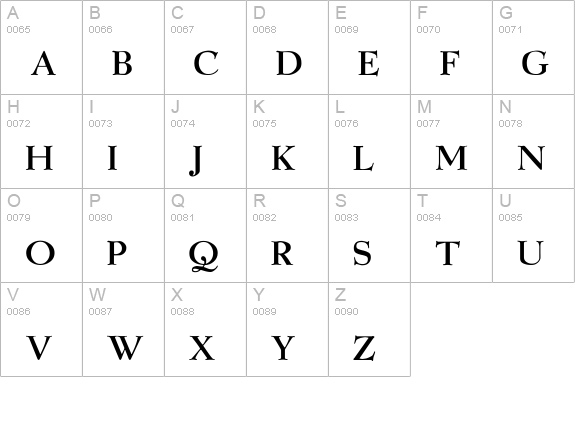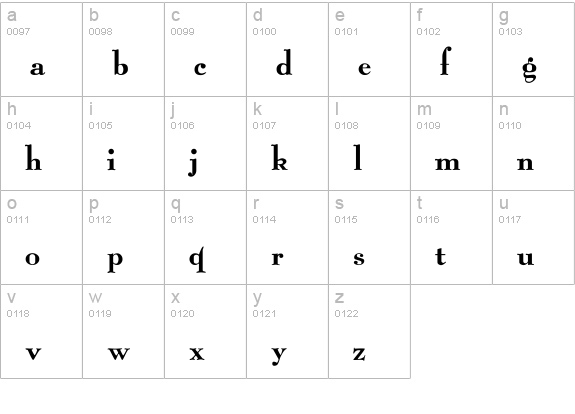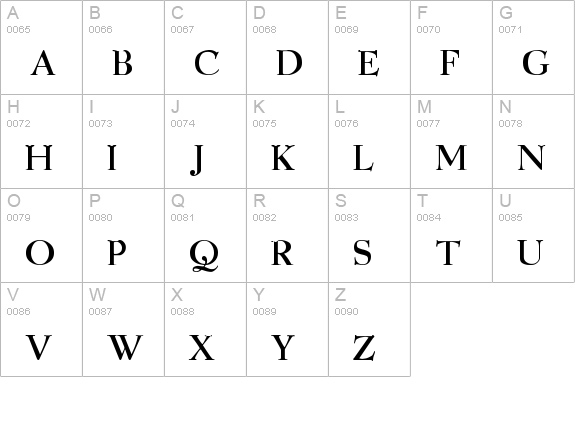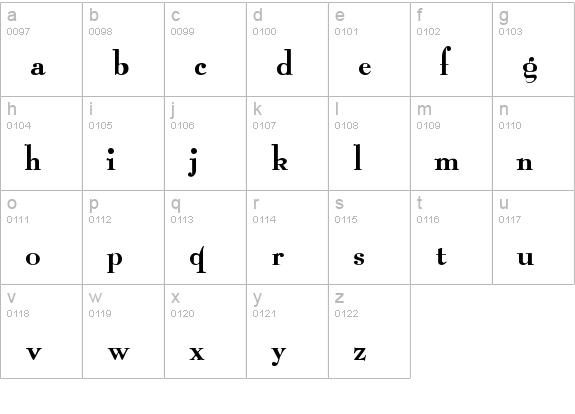
Owltone Font Details
Owltone font captures the essence of elegance and sophistication with its sleek lines and timeless appeal. This versatile typeface exudes a sense of modernity while maintaining a classic charm that makes it perfect for a wide range of design projects. Its clean and legible design makes it ideal for both digital and print applications, ensuring that your message is conveyed with clarity and style. What sets Owltone font apart is not only its striking aesthetics but also its accessibility. This premium font is available for free download exclusively at FontsMarket.com, making it easily accessible to designers and creatives looking to enhance their projects with a touch of sophistication. Whether you're designing a logo, website, or print materials, Owltone font is sure to elevate your work and leave a lasting impression on your audience.